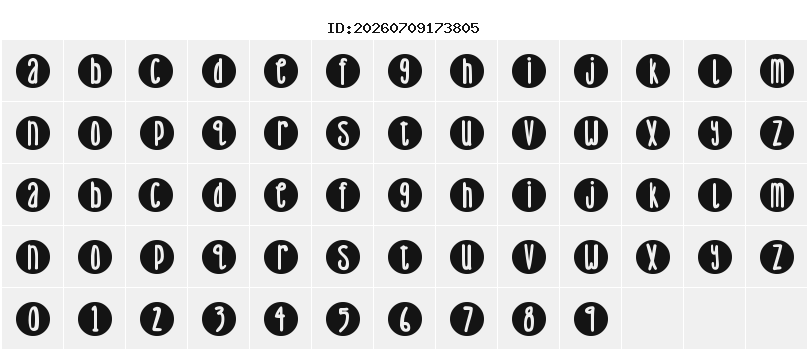
• Font Name: DJB Lemon Head Dots
• Full Font Name: DJB Lemon Head Dots
• Version: Version 1.00 July 31, 2015, initial release
About DJB Lemon Head Dots.ttf
DJB Lemon Head Dots.ttf is a modern, elegant sans-serif font designed for ultimate readability and visual harmony. Perfect for branding, headlines, web design, and print materials.